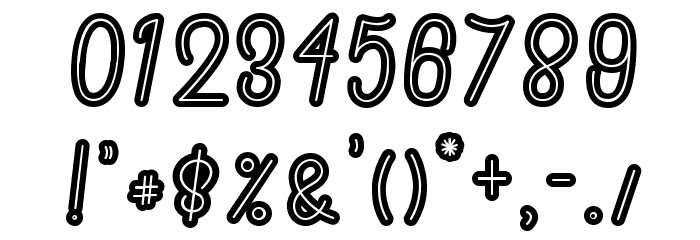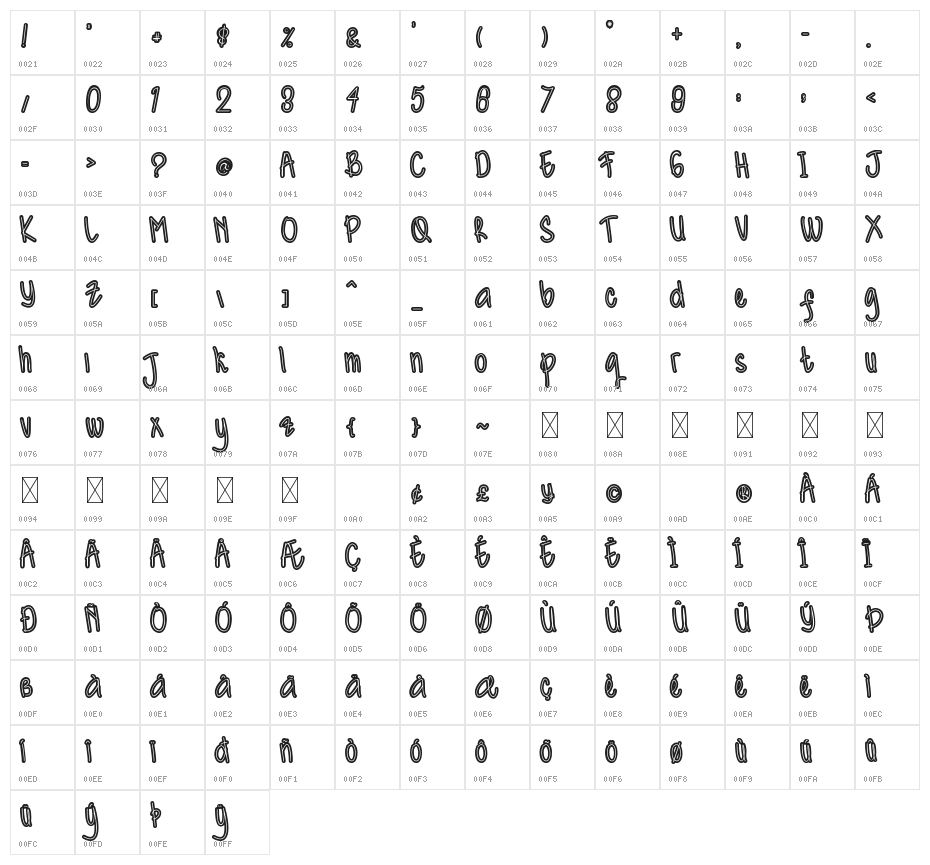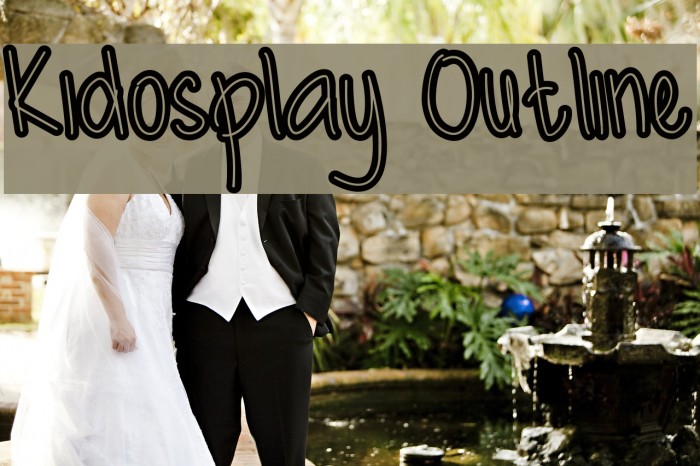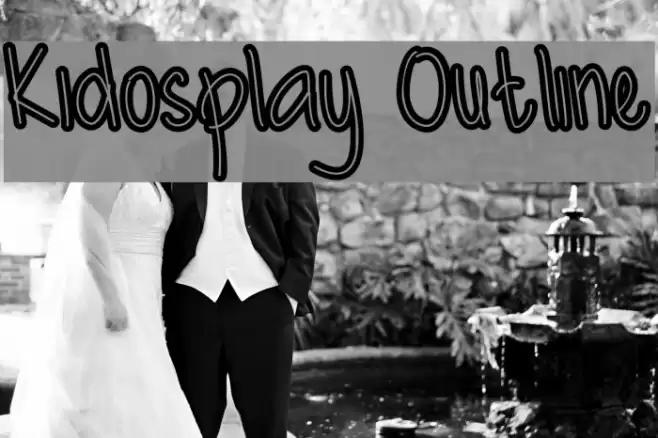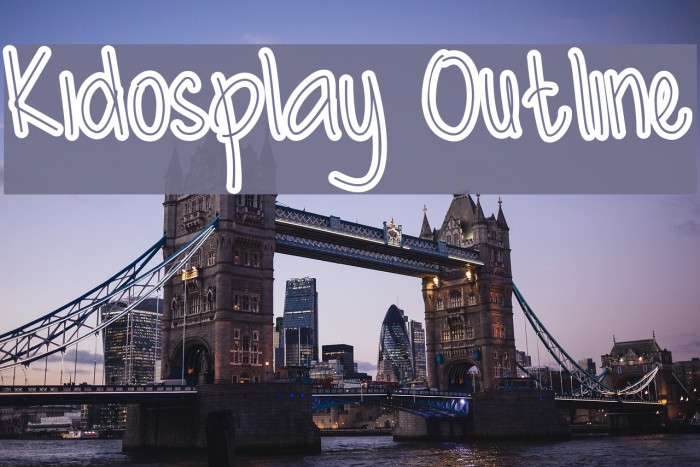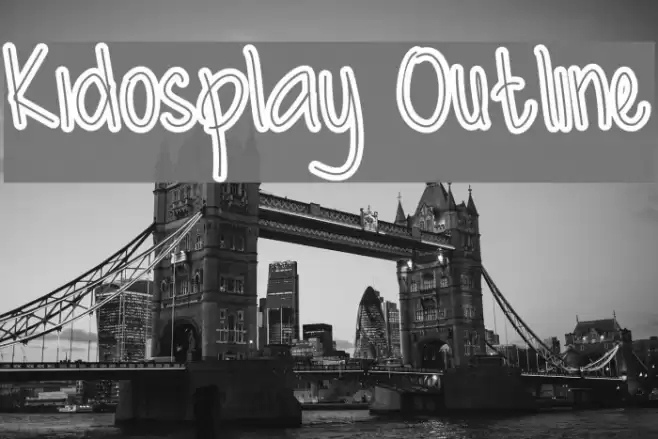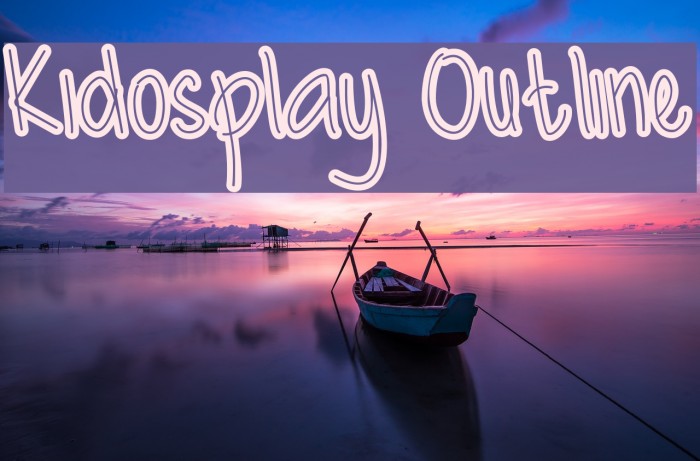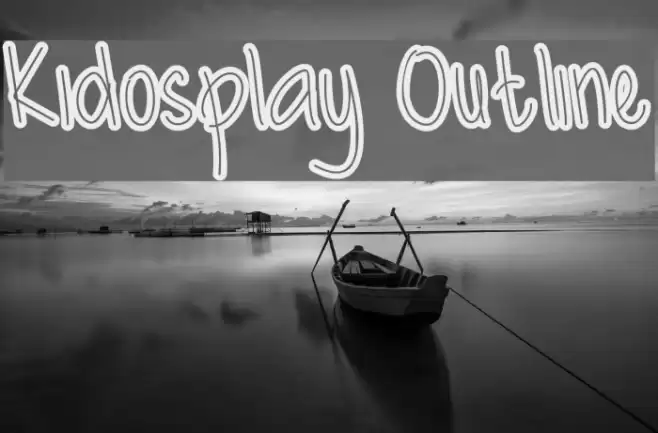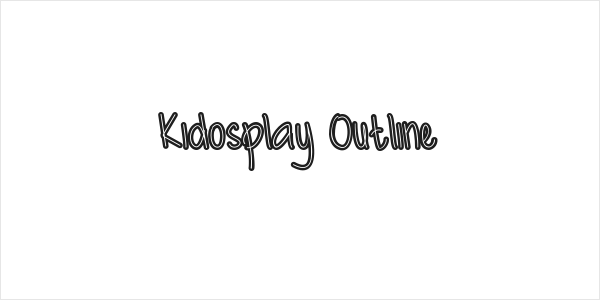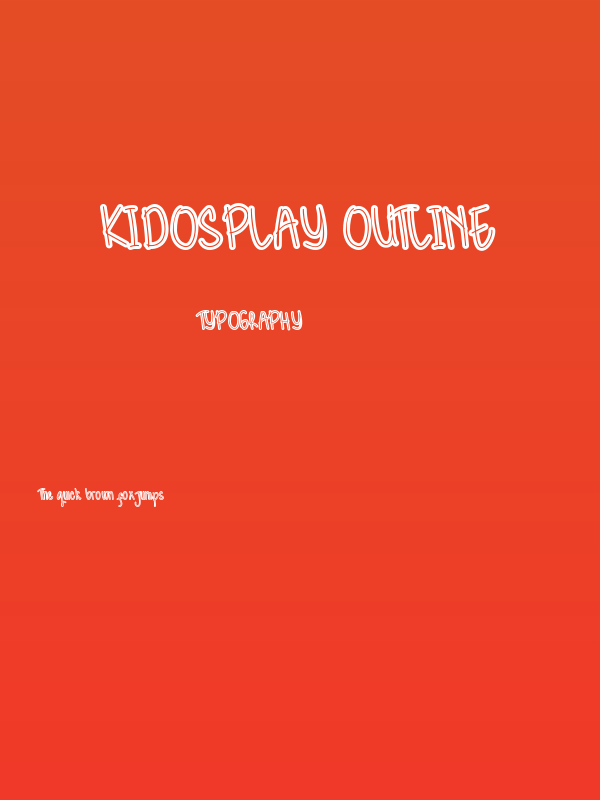
Kidosplay Outline Font
Kidosplay Outline Description
This playful and whimsical font features an outline style that gives it a bold and eye-catching appearance. The characters are rounded and slightly irregular, adding a sense of fun and creativity. The uppercase and lowercase letters maintain a consistent style, with a slight slant that enhances the casual feel. The numbers and special characters are designed to match the overall playful theme, making this font suitable for projects that require a lively and engaging look. The outline effect adds depth and dimension, making it stand out in various design contexts.
Overall StylePlayful, Whimsical
Proposed ProjectsIdeal for children's books, playful branding, party invitations, and creative posters.